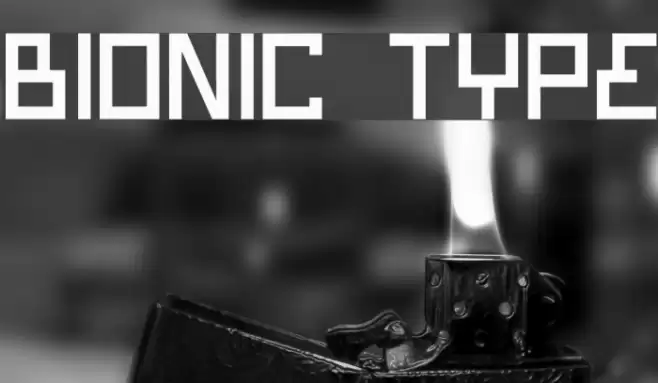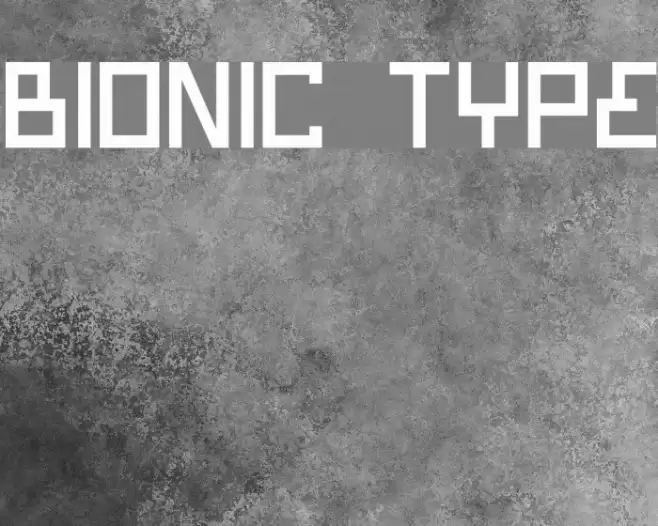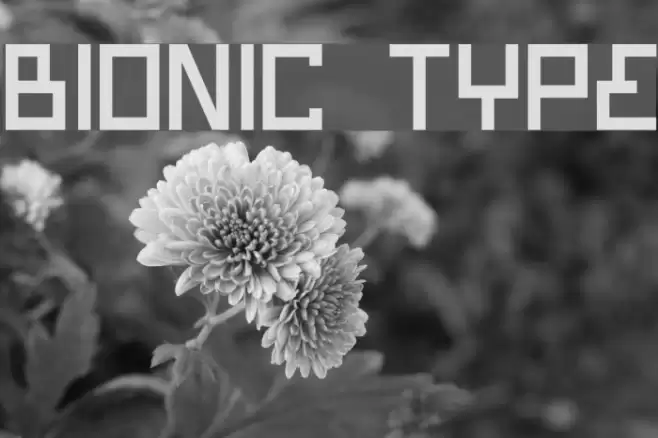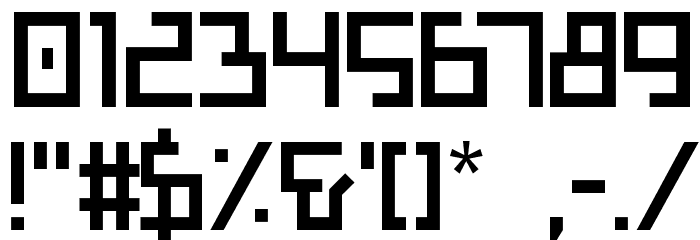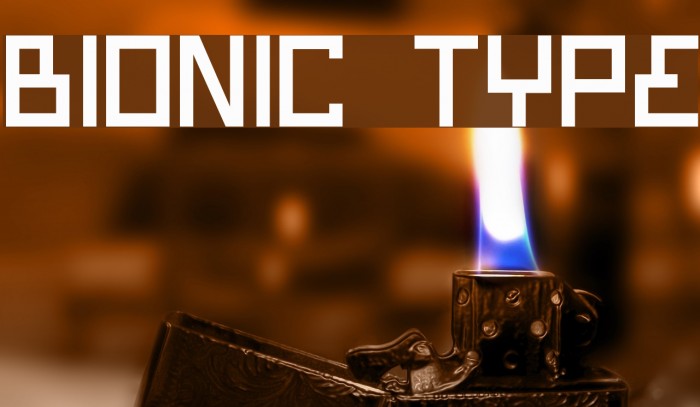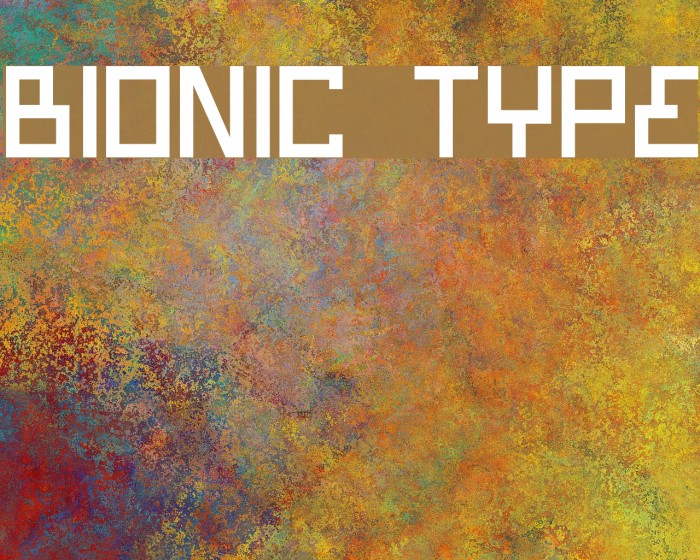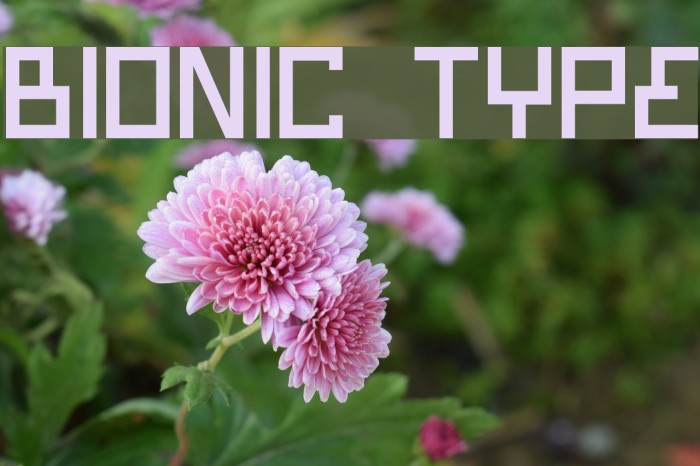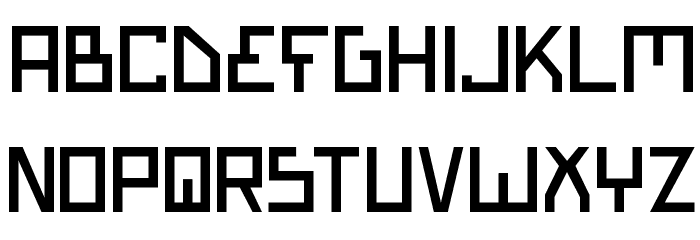
Bionic Type Font
Bionic Type Description
This font exhibits a futuristic and geometric design, characterized by its angular and blocky letterforms. The uppercase and lowercase letters share a consistent structure, emphasizing sharp edges and straight lines. The numerals and special characters maintain this cohesive style, contributing to a uniform appearance. The font's design is reminiscent of digital or technological themes, making it suitable for projects that require a modern and innovative look. Its bold and striking presence ensures readability while adding a distinctive flair to any text.
A futuristic, geometric font with angular, blocky letterforms from Uncategorized fonts.
- Proposed Projects: Ideal for technology branding, sci-fi posters, video game interfaces, and modern digital art.